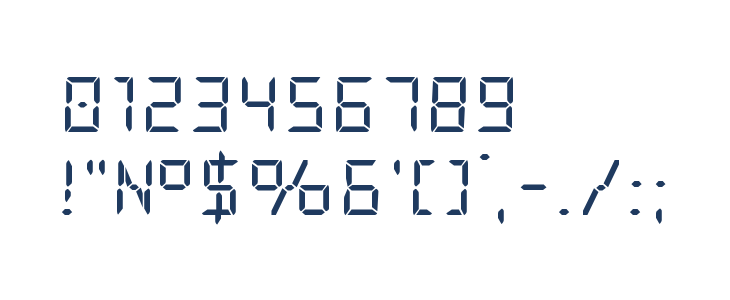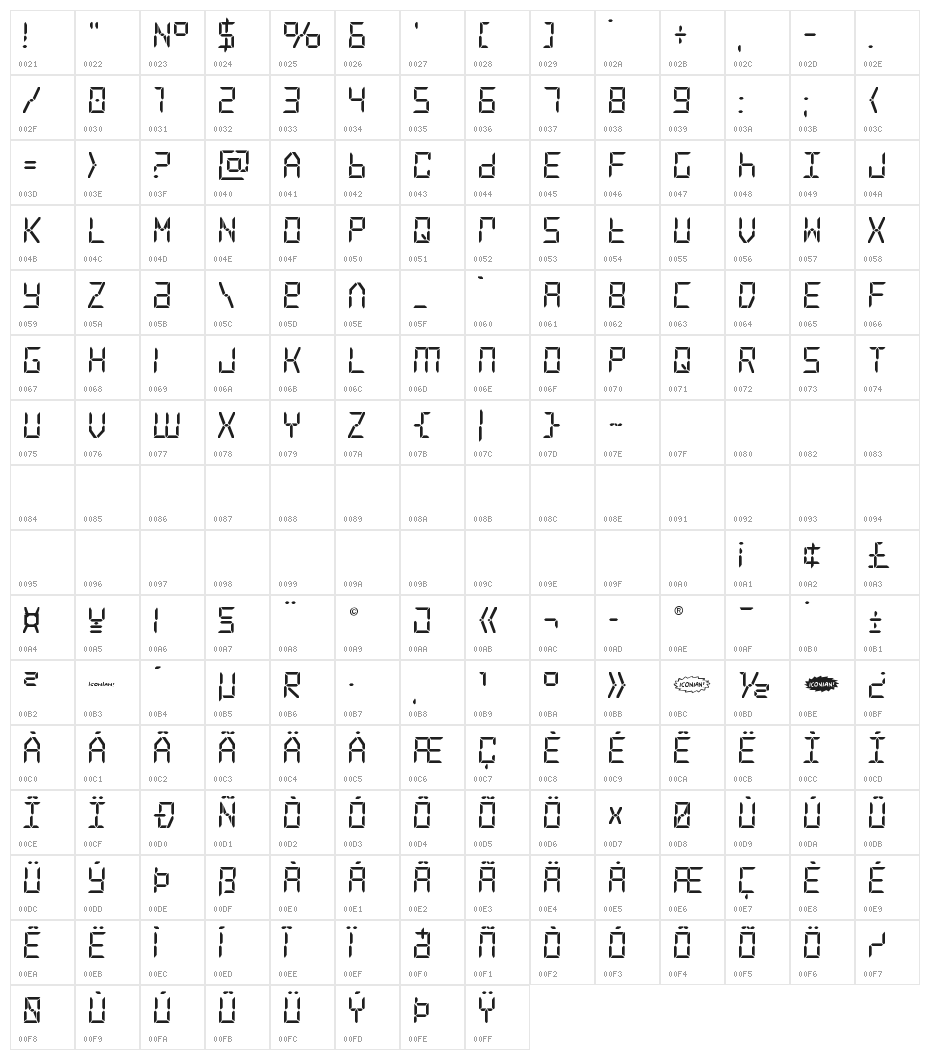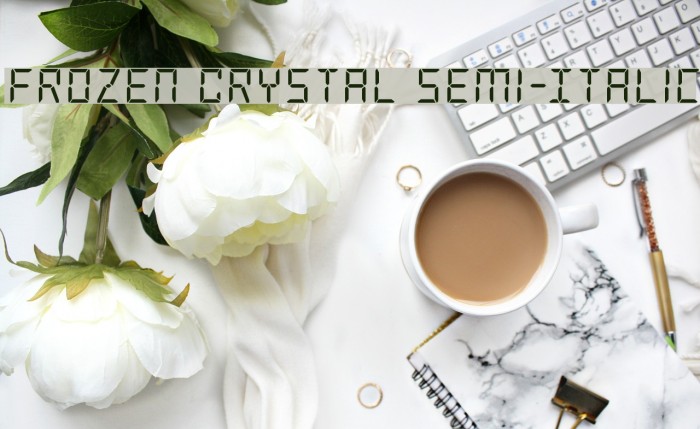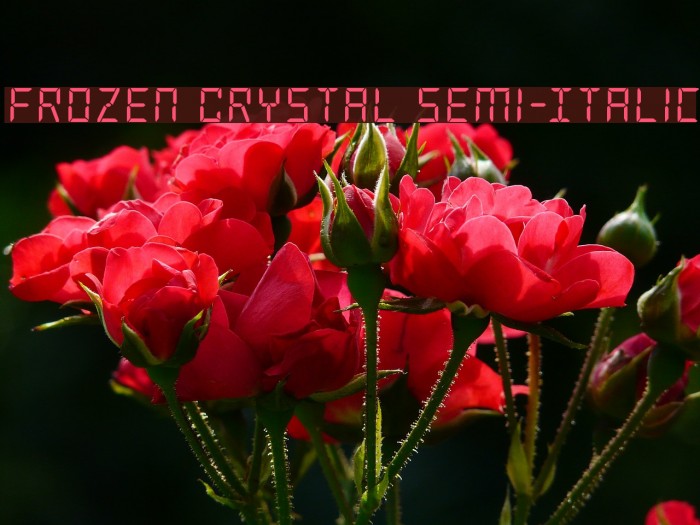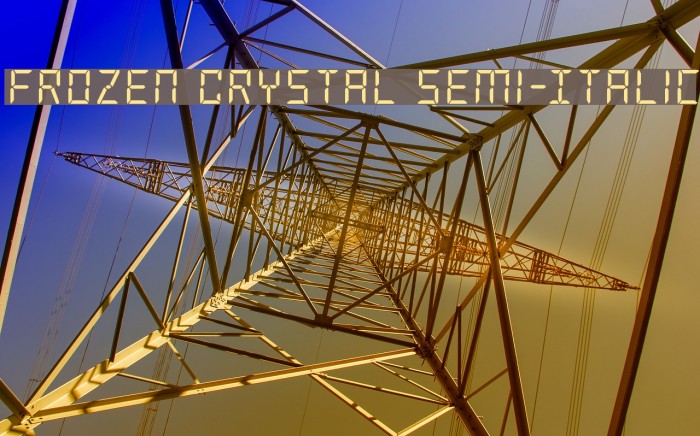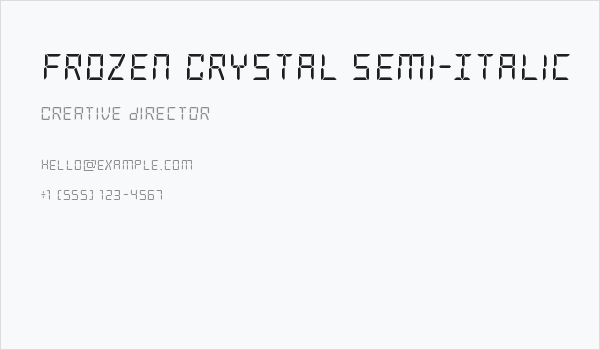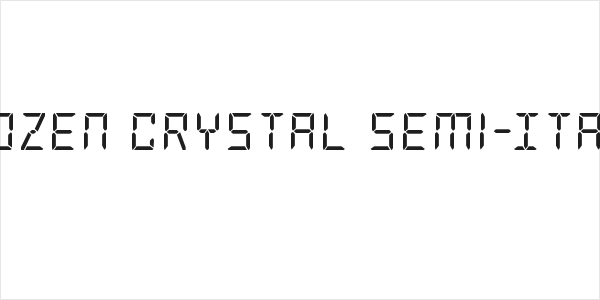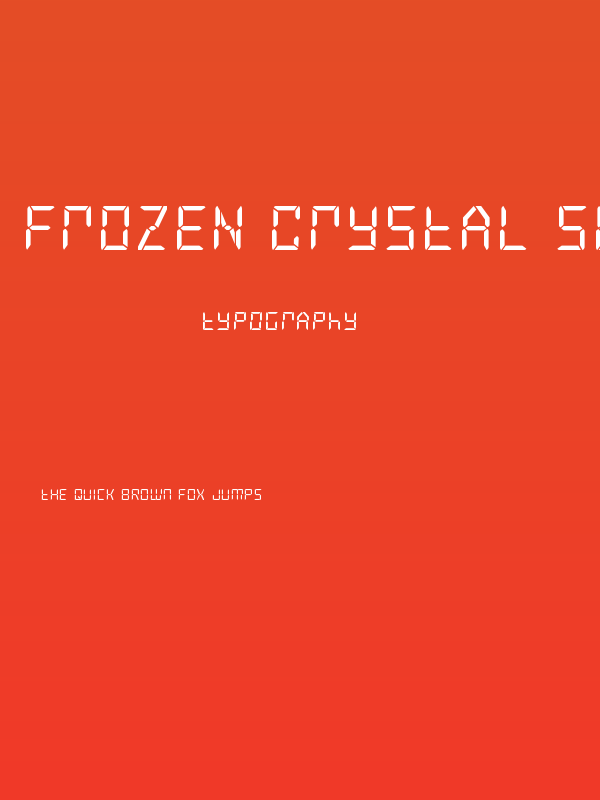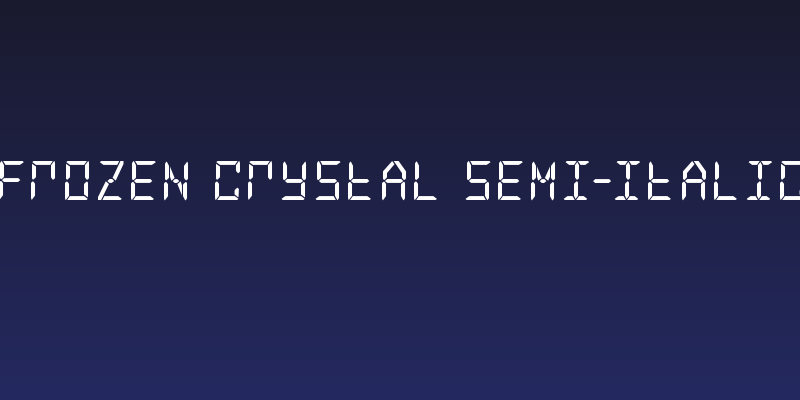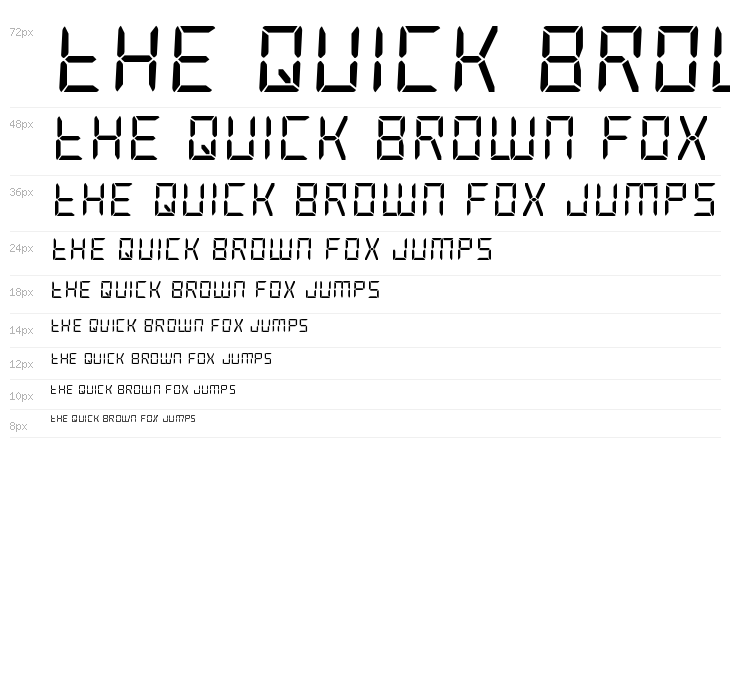
Frozen Crystal Semi-Italic Font
Frozen Crystal Semi-Italic Description
This font features a geometric, angular design reminiscent of digital displays or crystal formations. Each character is constructed with sharp, straight lines and distinct angles, giving it a futuristic and tech-inspired appearance. The uppercase and lowercase letters maintain a consistent style, with uniform line thickness and spacing. Numbers and special characters follow the same design principles, ensuring a cohesive look across all glyphs. The font's semi-italic slant adds a dynamic feel, enhancing its modern aesthetic. Ideal for projects that require a digital or sci-fi theme, this font stands out with its unique and bold presence.
Use CaseLogos, Headlines, Digital displays
Proposed ProjectsIdeal for tech-themed designs, digital interfaces, sci-fi book covers, and modern branding.